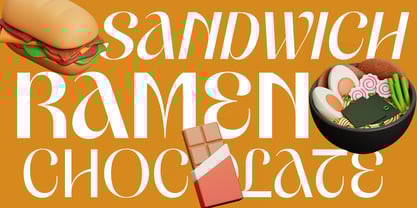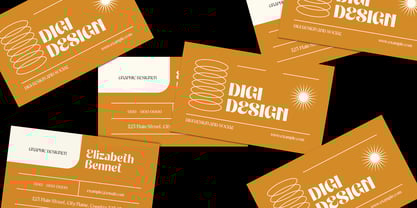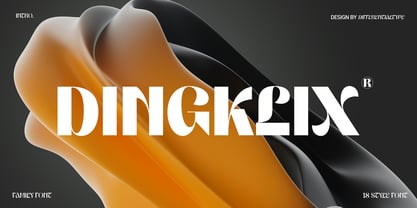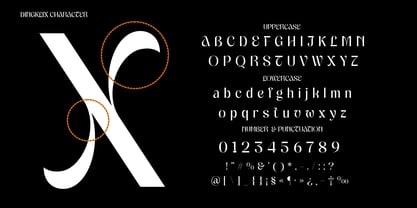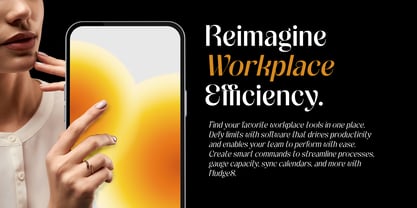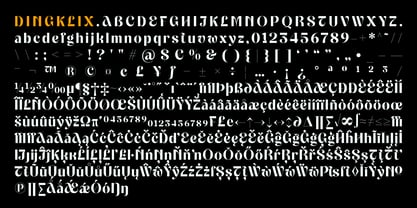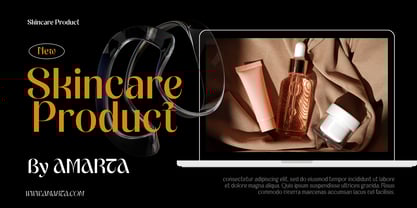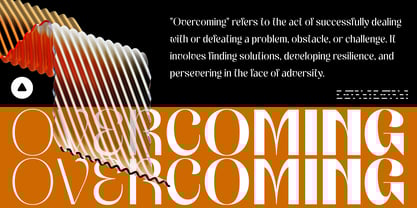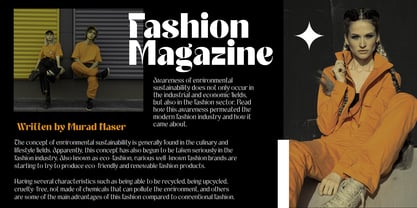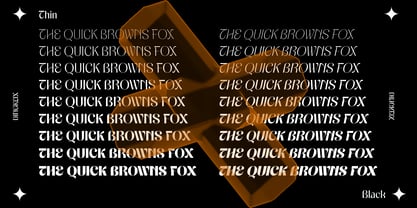
Dingklix
by Differentialtype
The Dingklix Font Family was designed by Sidik Sidik and published by Differentialtype. Dingklix contains 18 styles and family package options.
Welcome to the world of Dingklix, a contemporary sans display font family that infuses every design with aesthetic excellence. The striking weight differences make Dingklix a symbol of sophistication, transforming headlines, titles, and brand identities with unmatched elegance. Ingeniously crafted with an unwavering commitment to precision, this dynamic font family offers a spectrum of weights, comprising 18 styles ranging from subtle Thin to dramatic Black with italics. It’s a powerhouse of creative potential, perfect for transforming logos, headlines, social media posts, or corporate branding. Choose Dingklix to make your designs not just memorable, but unforgettable.